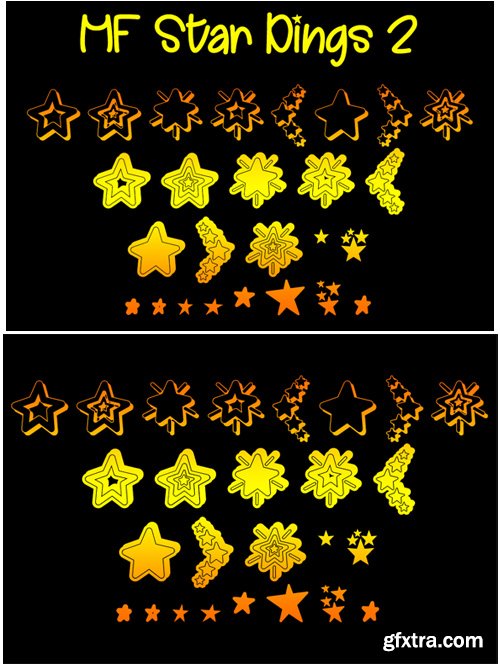
MF Star Dings 2 Font
MF Star Dings 2 is a collection of stars from various fonts! It contains 26 star symbols in various styles that are great for a variety of projects!